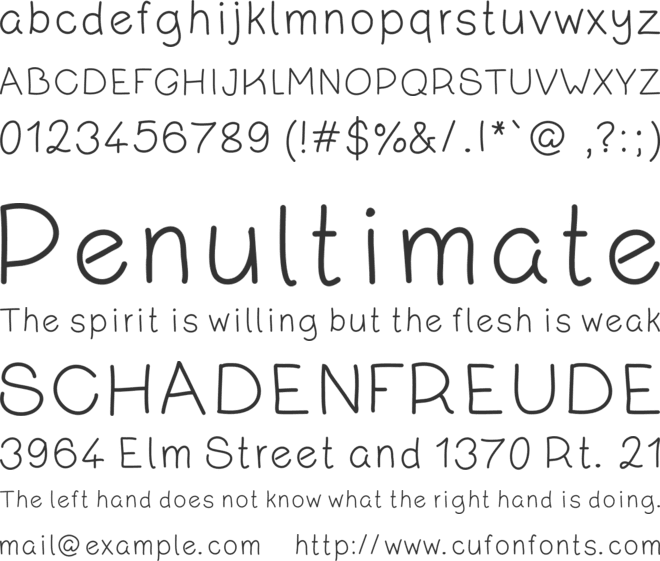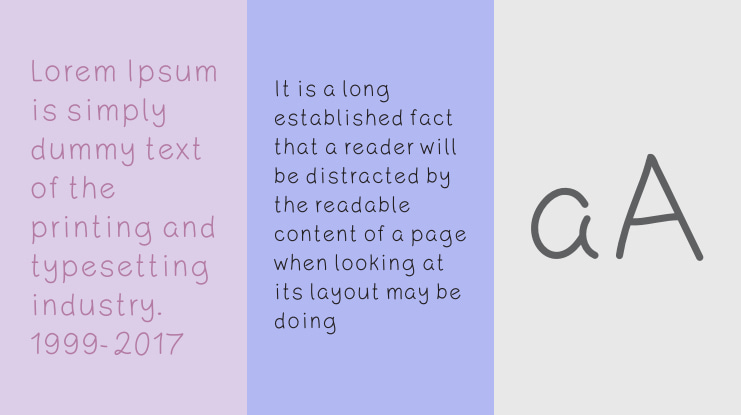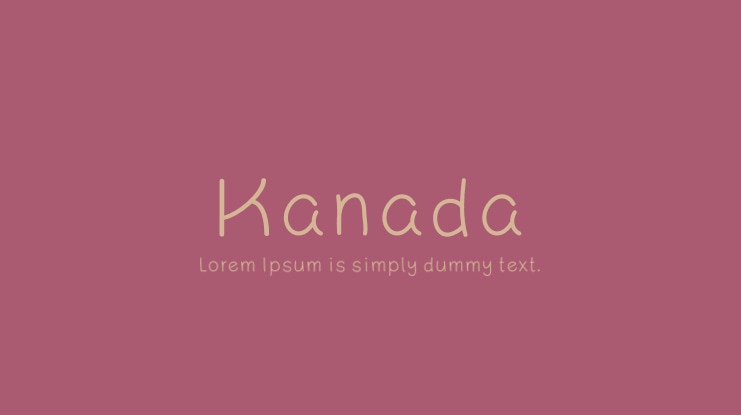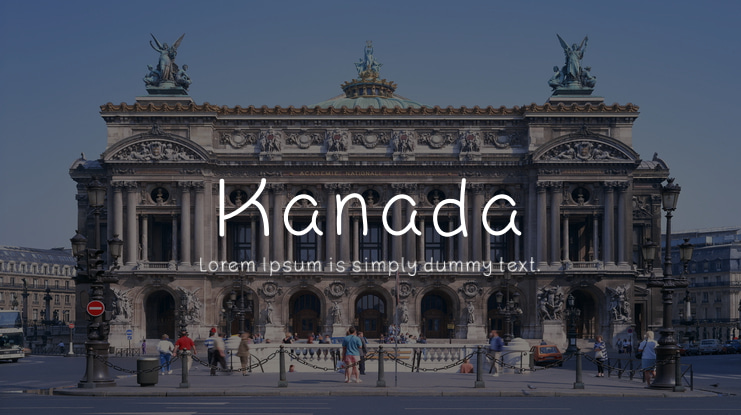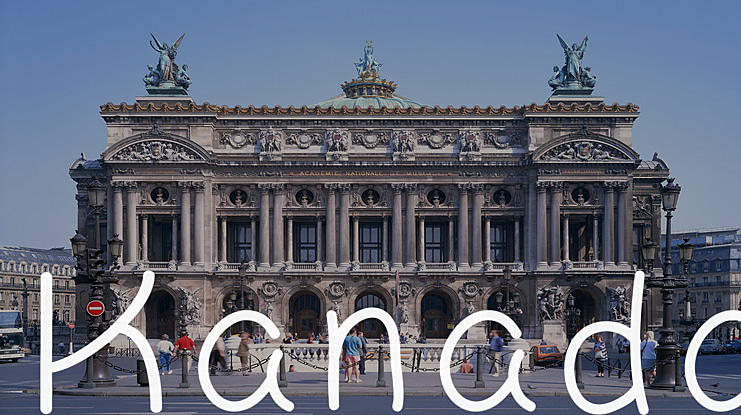
Kanada Font
Philip trautmann
For my new font project I didn't want to design something perfect, I wanted to create something with a unique and honest character. So that's Kanada. A simple handwritten font which is imperfect and clean at the same time.